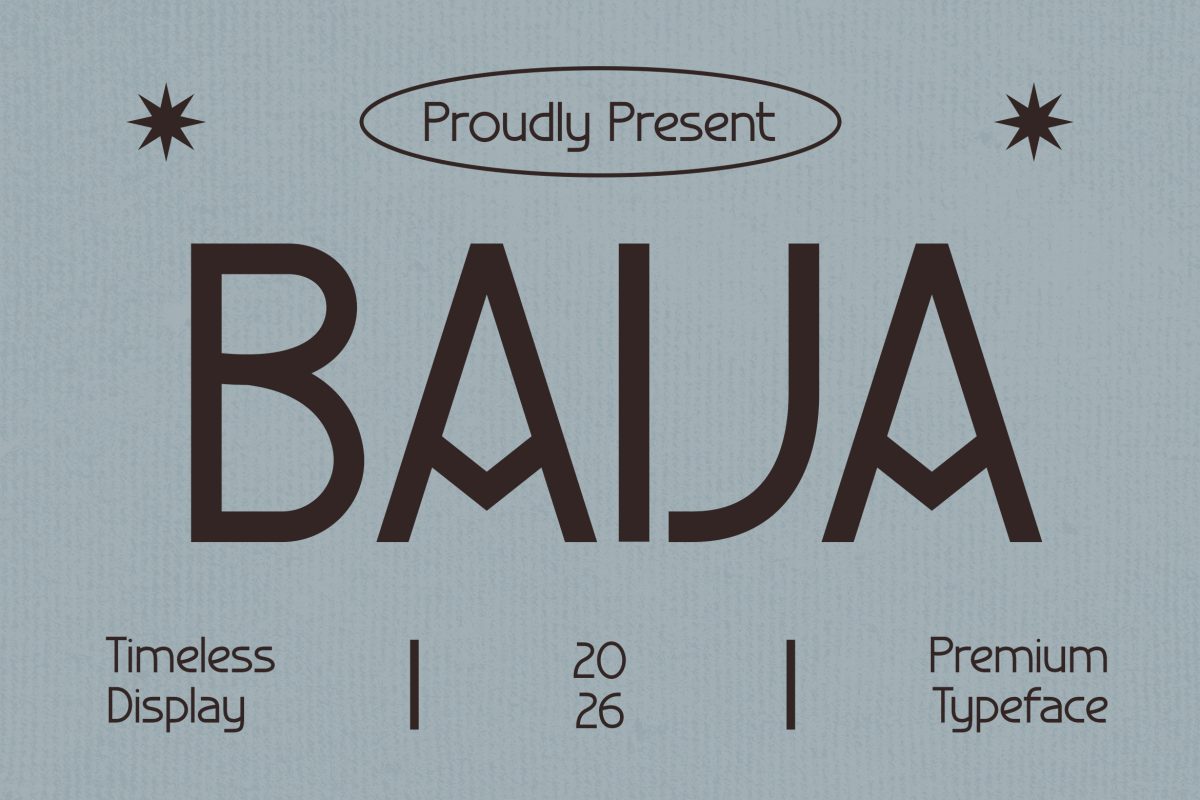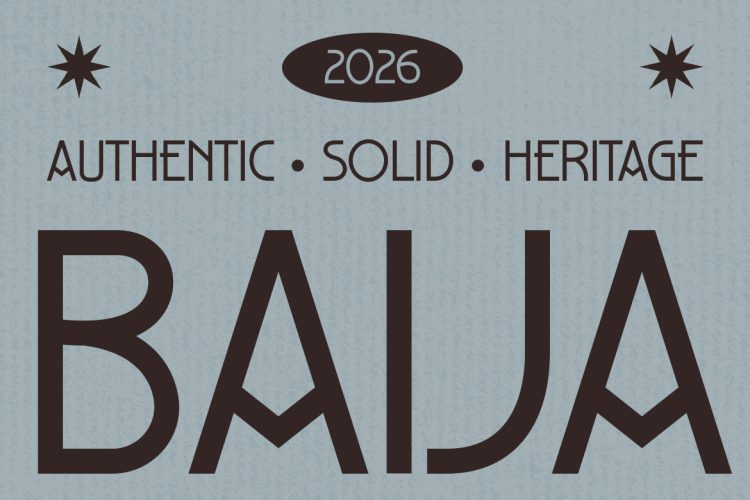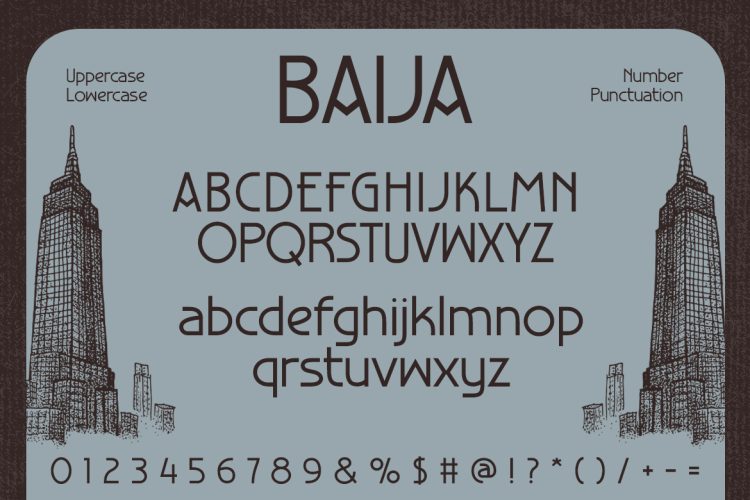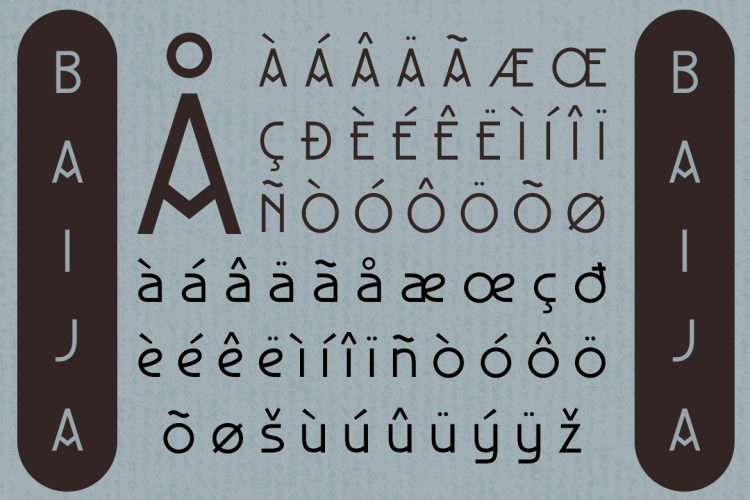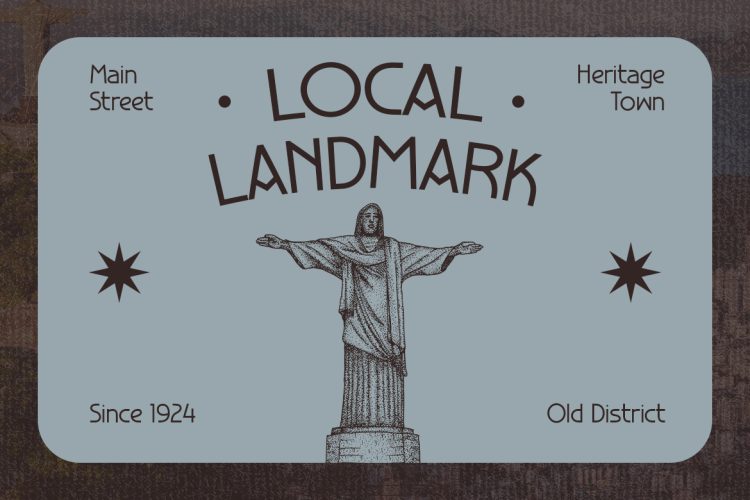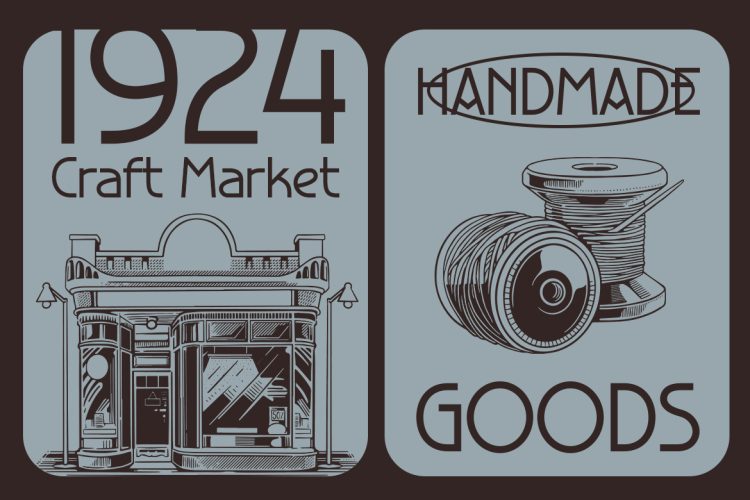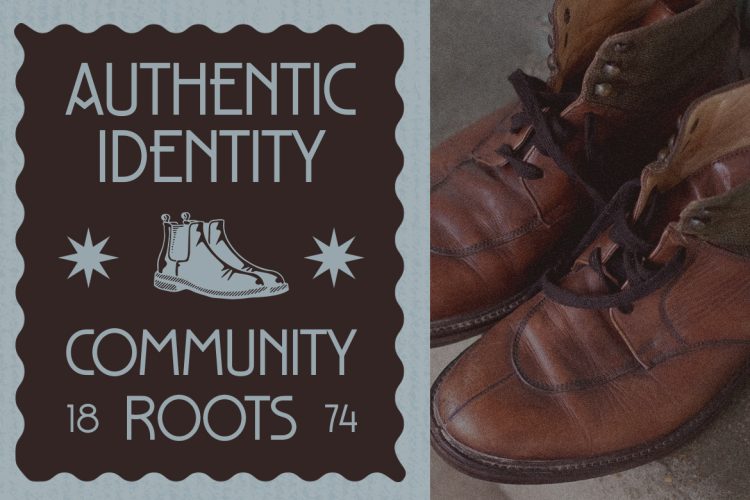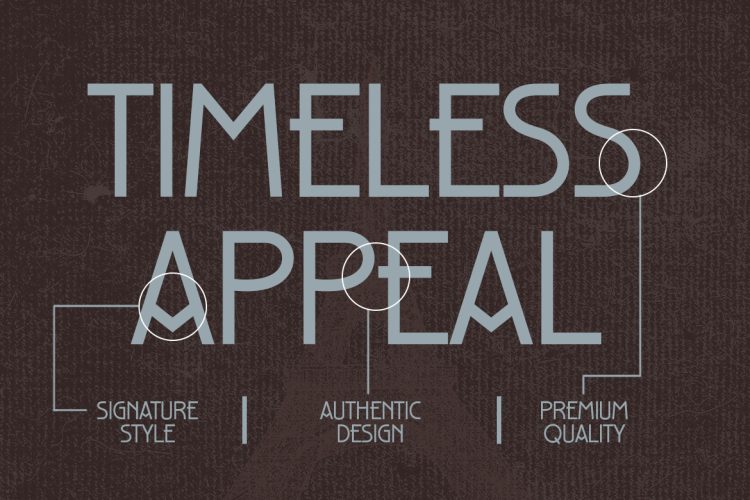
Retro Font BAIJA
BAIJA โ€“ Classic Heritage Display Font for Authentic Vintage Branding
Retro Font BAIJA blends timeless elegance with vintage craftsmanship to create typography that feels authentic, refined, and unforgettable. Inspired by heritage signage and classic editorial design, it features clean geometric letterforms, subtle Art Deco influences, and balanced proportions that deliver a sophisticated retro character. Moreover, its minimalist structure keeps every word highly readable, while its nostalgic personality gives your branding a lasting impression. As a result, every headline looks confident, distinctive, and full of vintage charm.
Why You’ll Love It
Additionally, BAIJA is designed for creatives who appreciate classic aesthetics with modern flexibility. Whether you’re crafting premium packaging, cafรฉ branding, travel posters, editorial layouts, logos, or lifestyle brands, this typeface adapts beautifully across print and digital media. Furthermore, its clean lines pair effortlessly with photography, minimalist compositions, and elegant branding systems. Besides that, Multilingual Support for 67 languages helps you communicate with audiences worldwide. Therefore, your designs remain professional, consistent, and globally accessible.
Retro Font BAIJA Perfect For
Vintage branding, heritage logos, cafรฉs, restaurants, hotels, travel posters, editorial magazines, book covers, packaging, fashion labels, craft markets, premium merchandise, product labels, advertising, and lifestyle branding.
Give Your Brand a Timeless Identity
Finally, let Retro Font BAIJA transform ordinary typography into a memorable visual statement. Not only does it deliver a clean retro aesthetic, but it also adds credibility and character to every project. So, make your next design stand out with a typeface that celebrates timeless craftsmanship.
• Basic latin A-Z and a-z
• Multilingual Support (67 Languages)
Classic never fades. Retro Font BAIJA brings clean vintage vibes and timeless style to make every design look iconic.